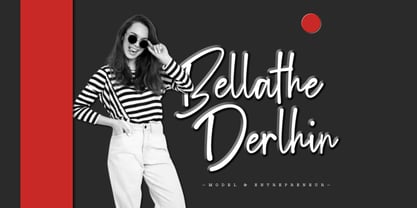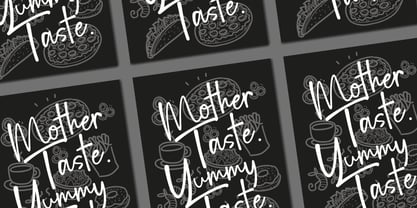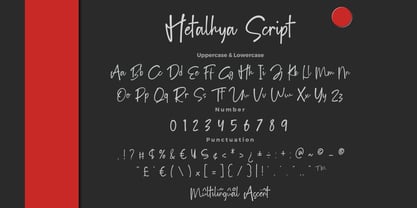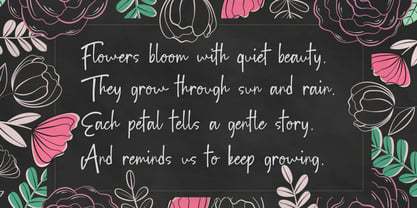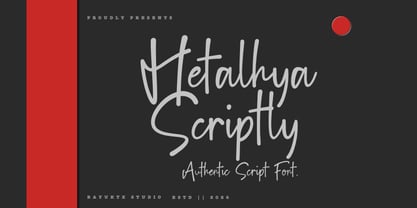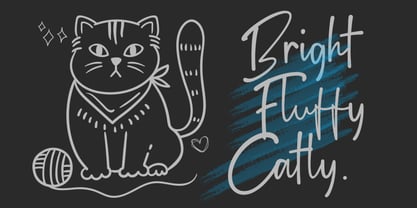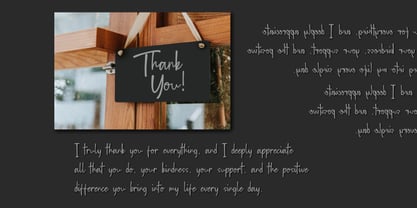
Hetalhya Scriptly
von Bayuktx
Die Schriftfamilie Hetalhya Scriptly wurde von Bayu Aji Fais Mursid entworfen und von Bayuktx veröffentlicht. Hetalhya Scriptly enthält 1 Stile. Mehr über diese Familie
Hetalhya Scriptly – Authentic Script Font Hetalhya Scriptly Authentic Script Font is a stylish and elegant handwritten typeface inspired by natural pen strokes, modern calligraphy, and smooth signature lettering. Featuring flowing curves, soft connections, and balanced rhythm, this font delivers a graceful and expressive personality. Designed to capture the beauty of authentic handwriting, Hetalhya Scriptly blends fluid script motion with a clean and contemporary touch. Each letter is crafted with subtle variations, giving it a natural, organic feel that looks both personal and refined. With its sophisticated and versatile aesthetic, Hetalhya Scriptly is perfect for designs that aim to feel elegant, warm, and stylish. It brings a timeless charm that works beautifully across both modern and classic creative projects. Key Features : * Uppercase & Lowercase Characters * Numerals & Punctuation * Multilingual Support * PUA Encoded & OpenType Features * Smooth Handwritten Script Style * Elegant & Flowing Letterforms * Natural & Organic Look Suitable For : * Branding & Logo Design * Wedding Invitations & Stationery * Social Media Graphics s * Signature & Personal Branding * Quotes & Typography Design * Packaging & Labels * Elegant & Modern Projects With Hetalhya Scriptly a Authentic Script Font, your designs will feel more refined, expressive, and effortlessly elegant — perfect for projects that seek a natural handwritten touch with a modern appeal.
Designer: Bayu Aji Fais Mursid
Foundry: Bayuktx